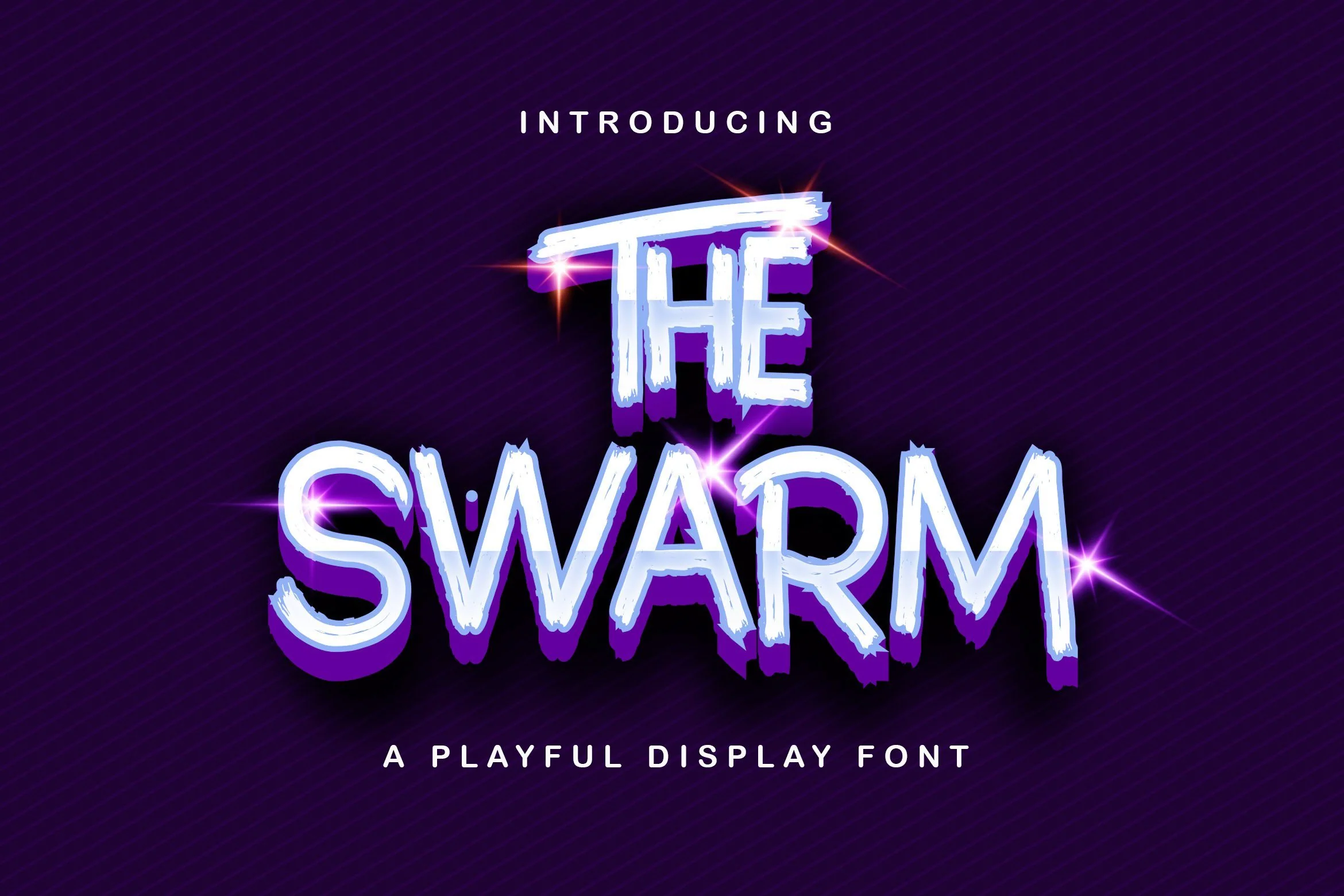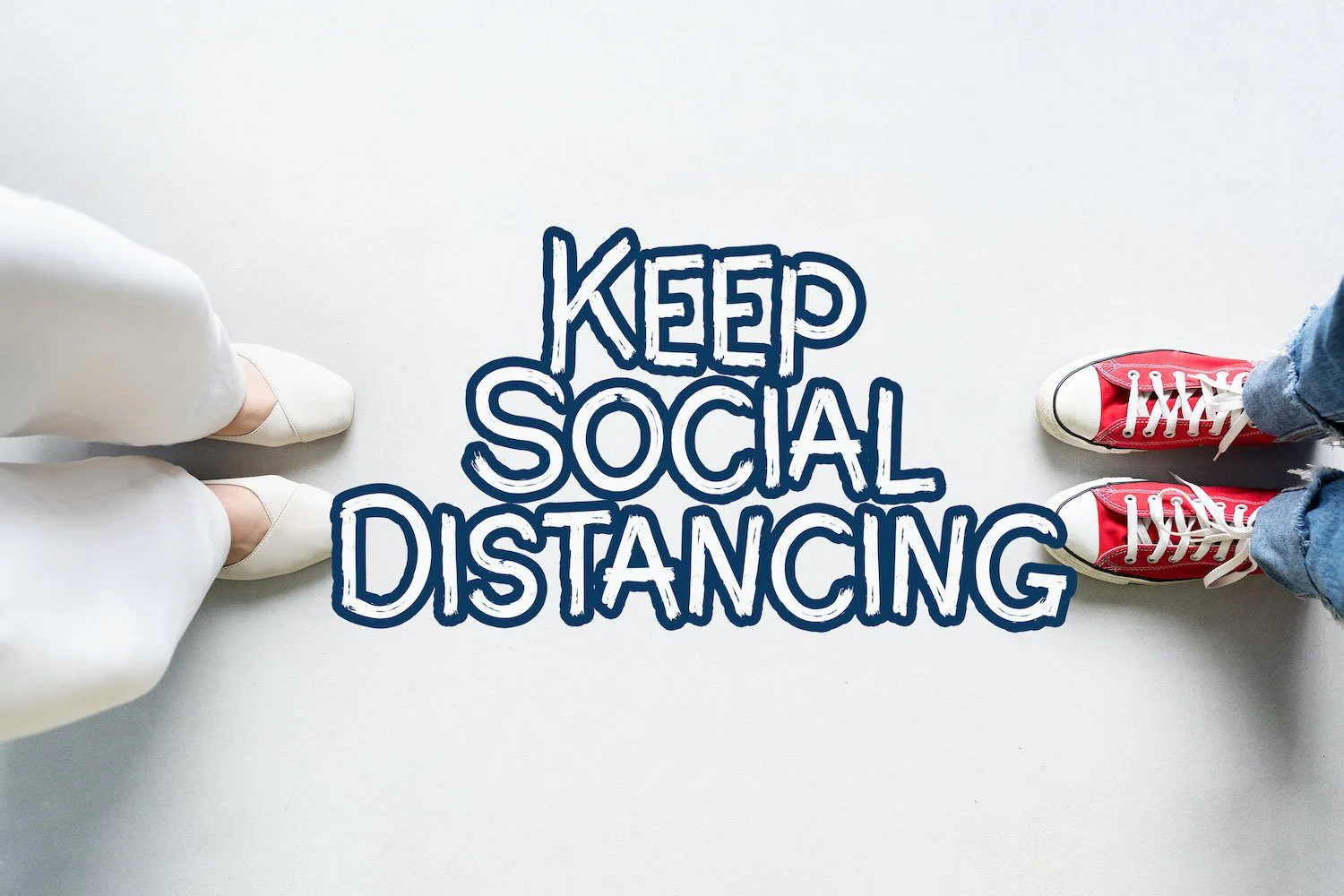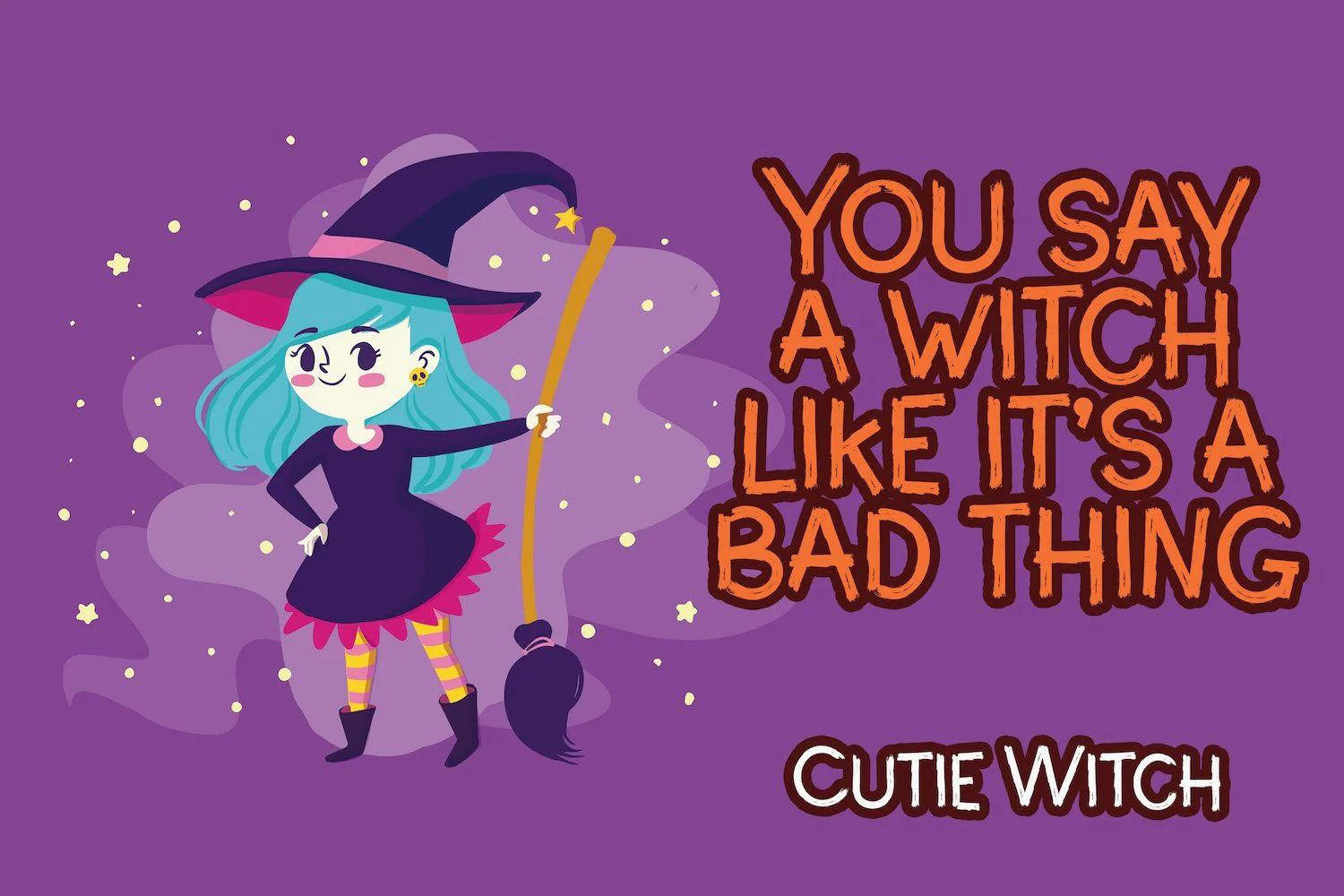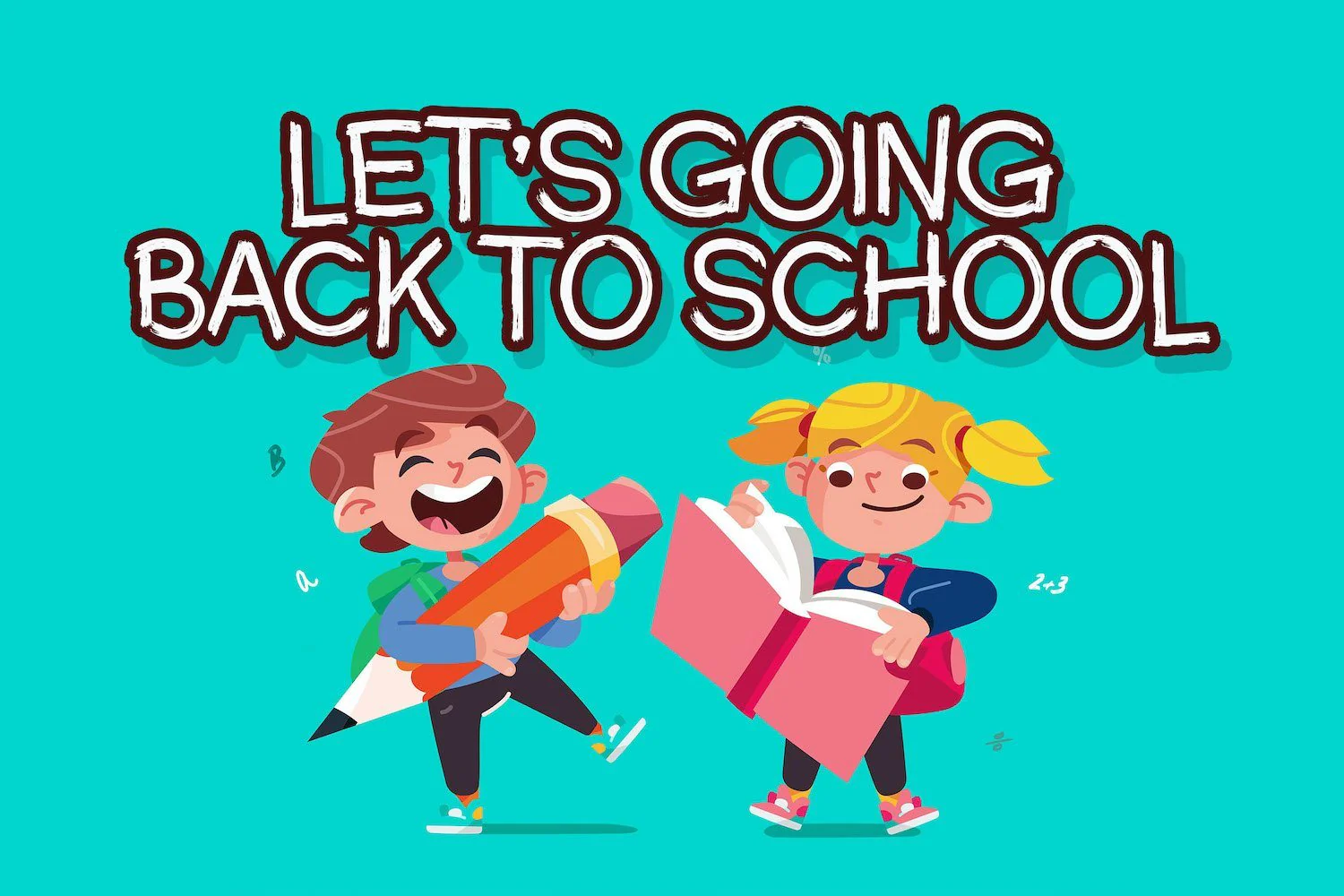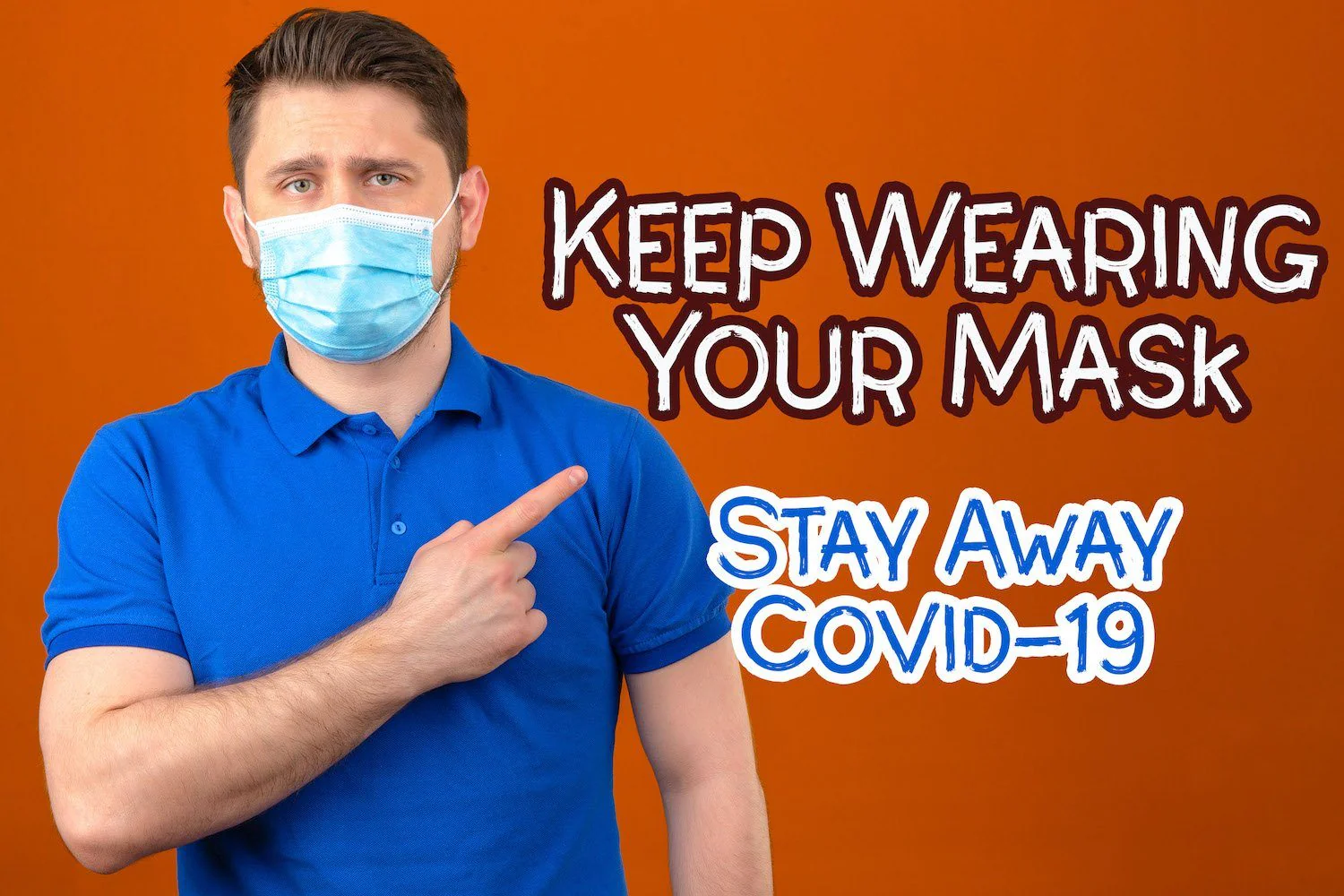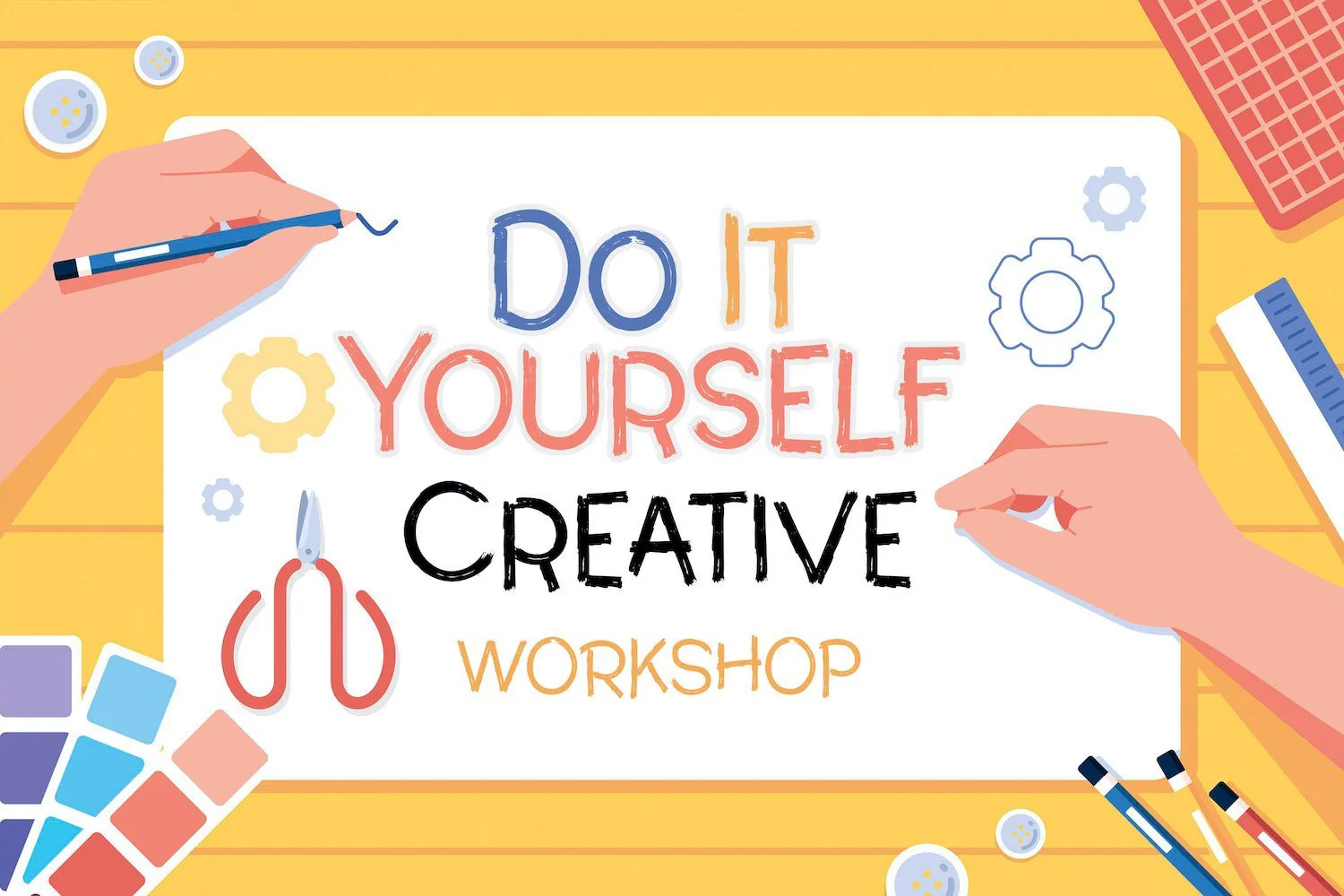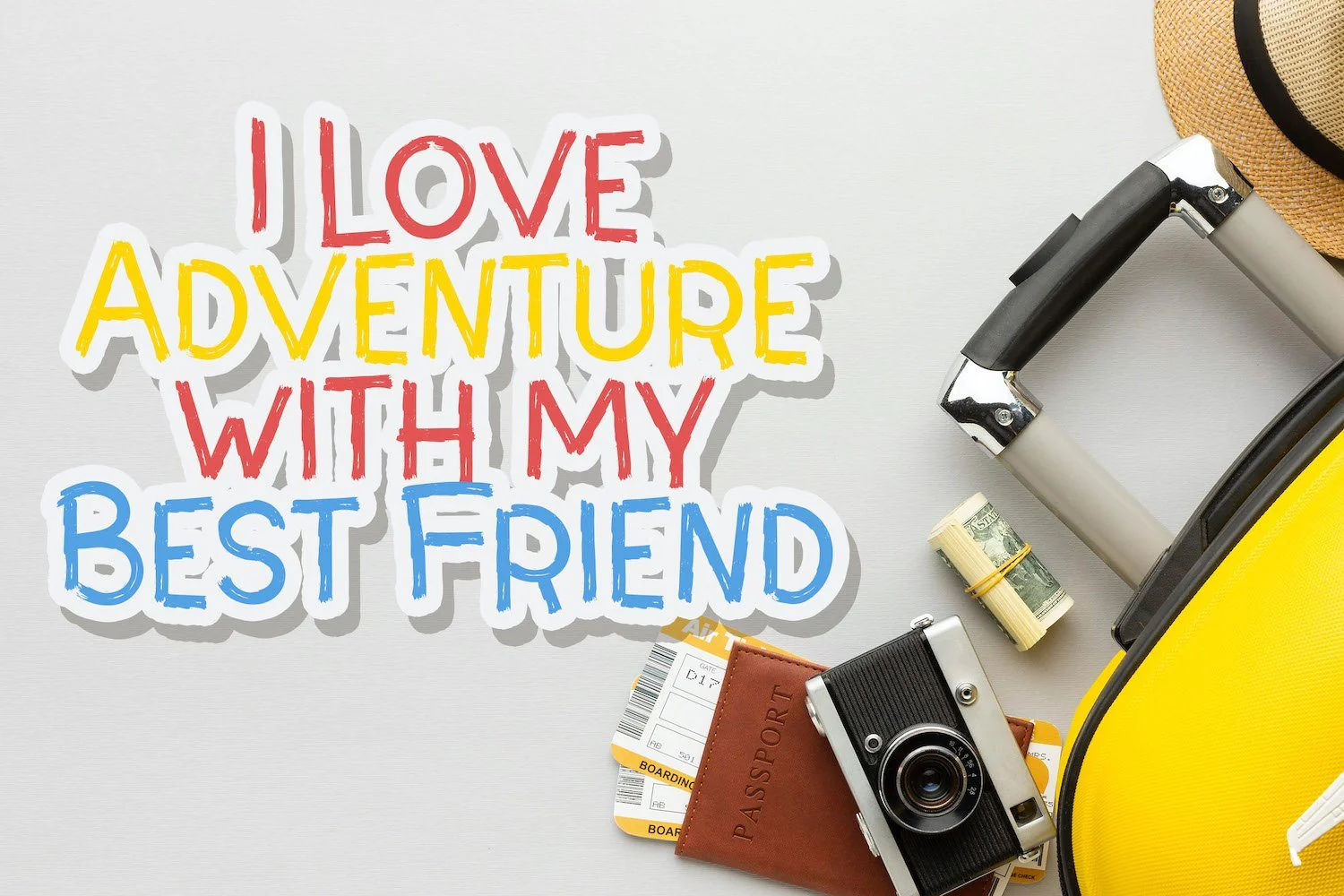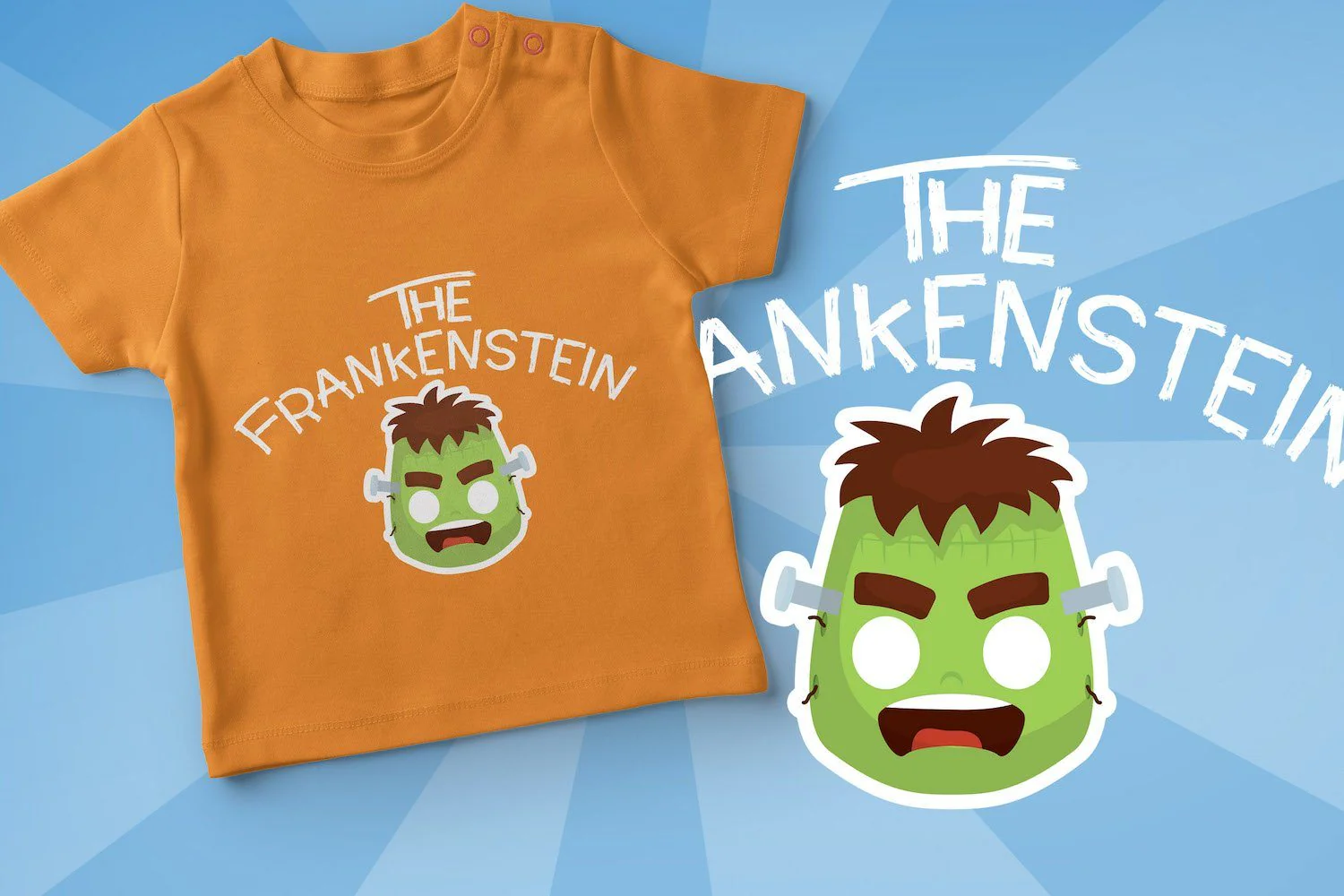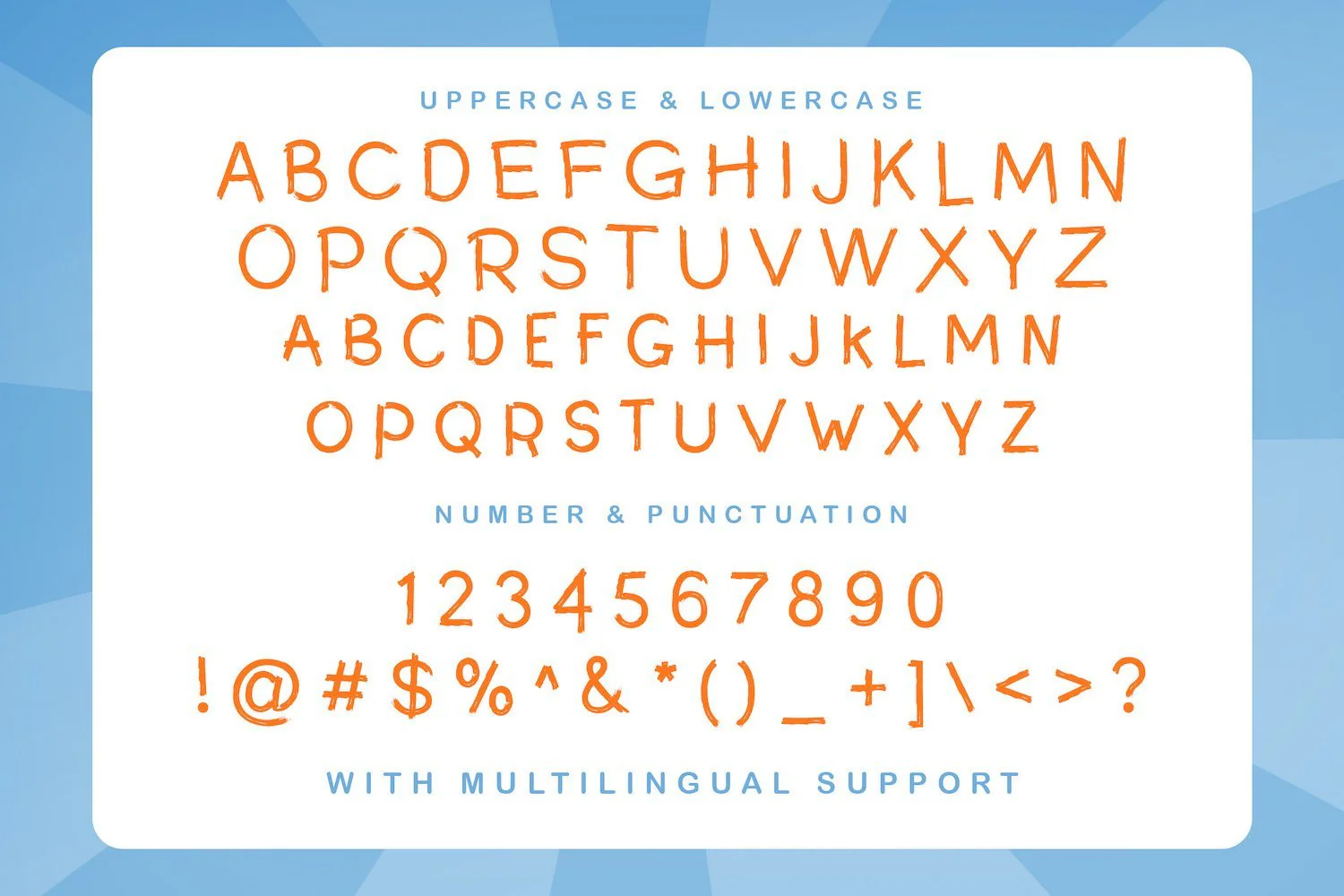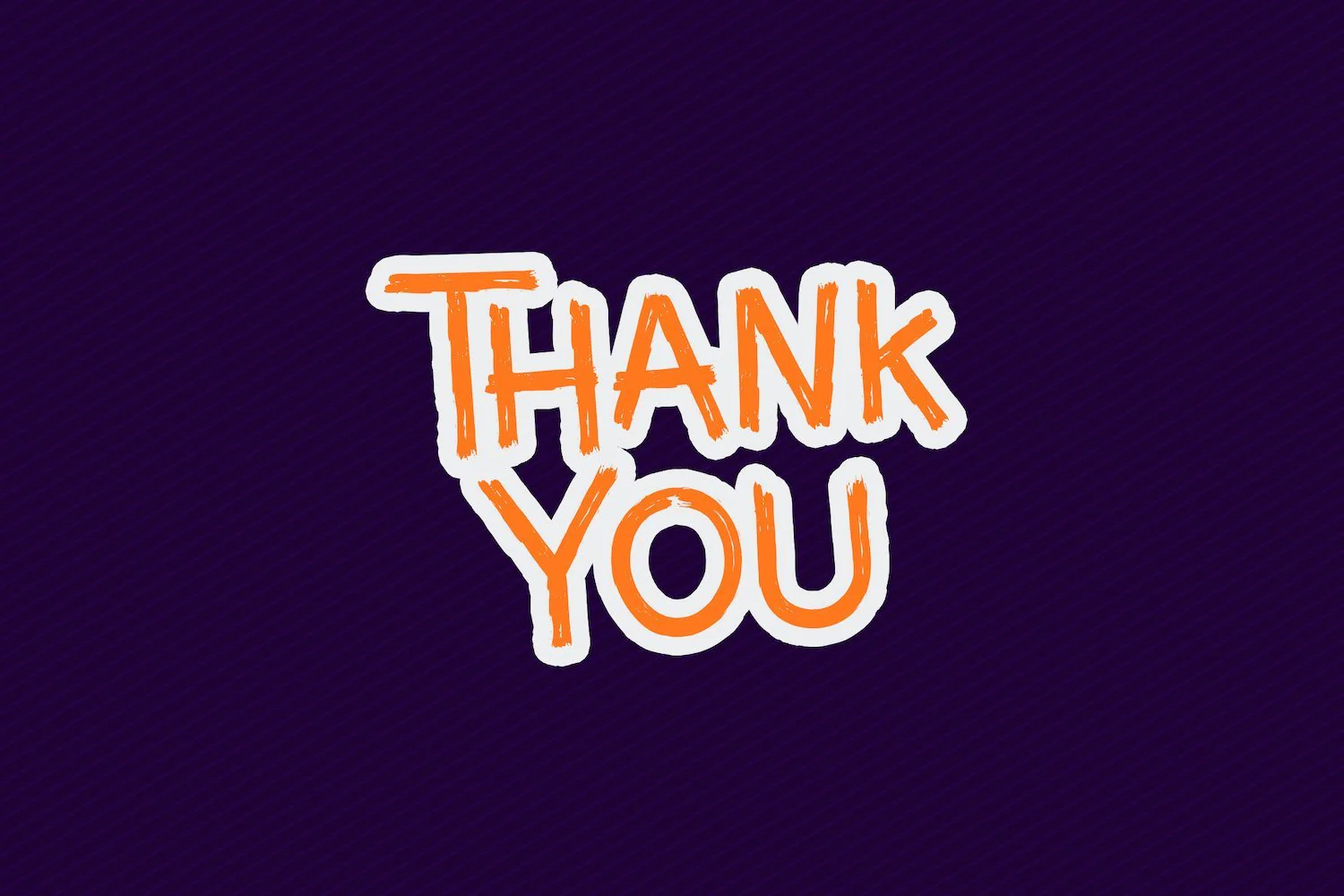
The Swarm - Playful Display Font
Introducing The Swarm - Playful Display Font
The Swarm is a fun display font. Playful and fresh with brush textured, this font will be a hit for each of your children or school projects!
Introducing The Swarm - Playful Display Font
The Swarm is a fun display font. Playful and fresh with brush textured, this font will be a hit for each of your children or school projects!